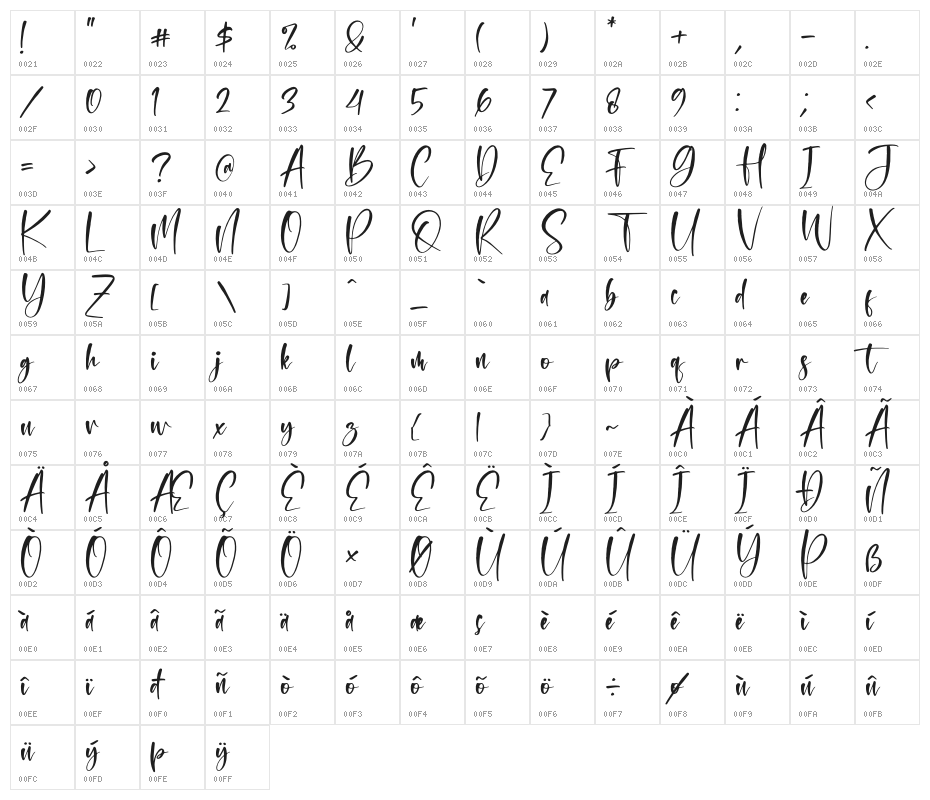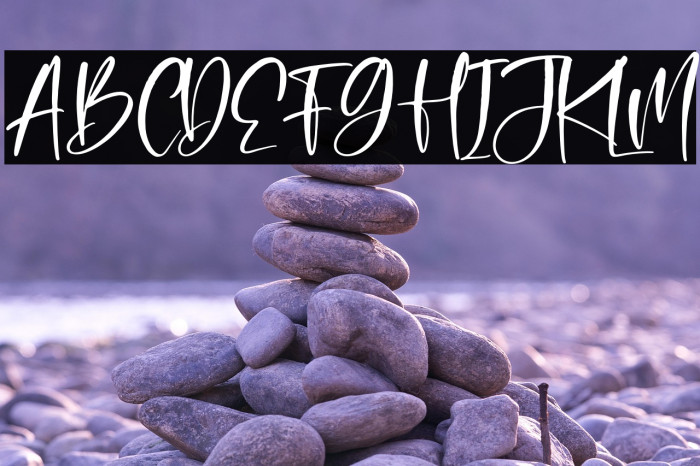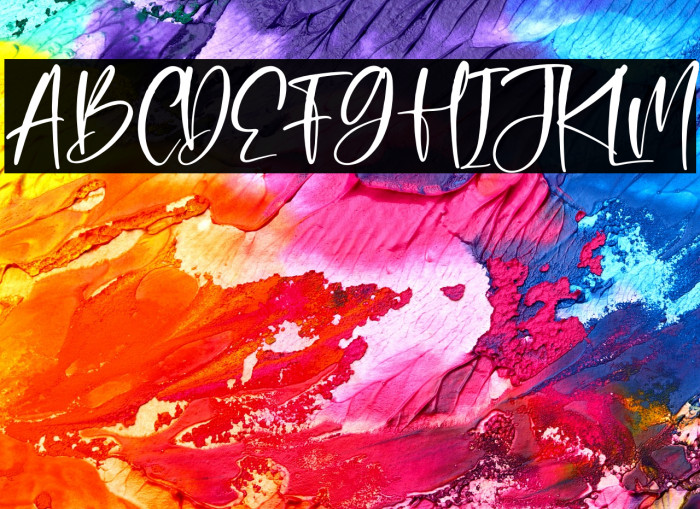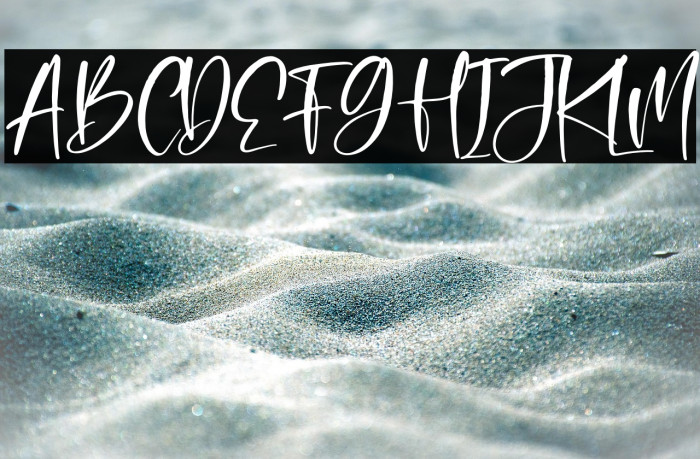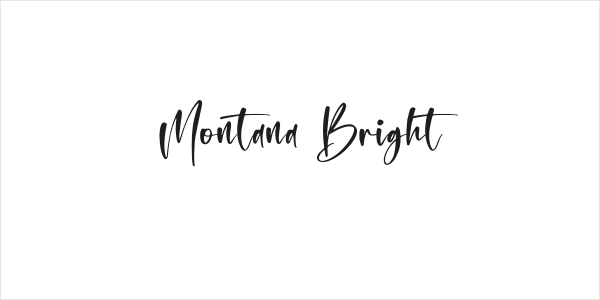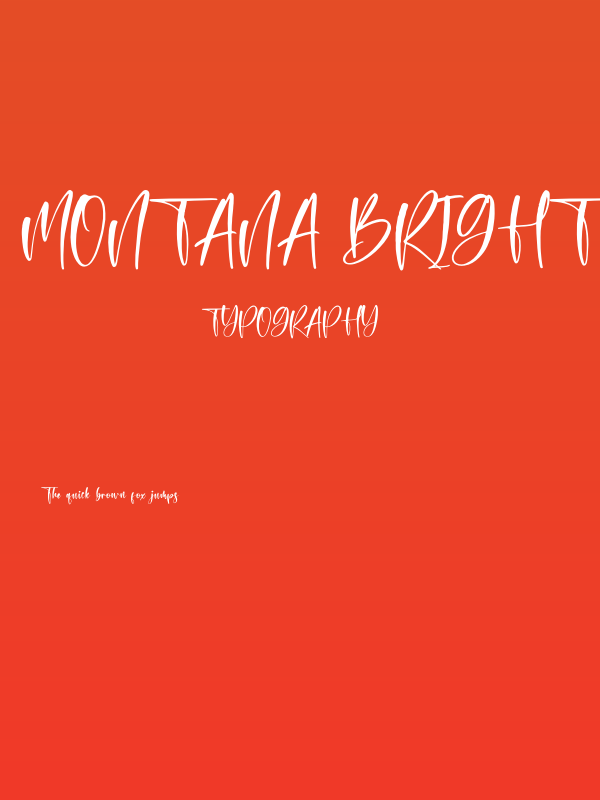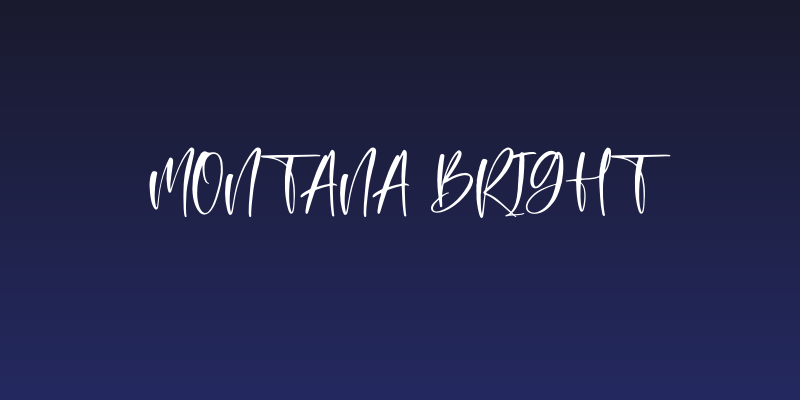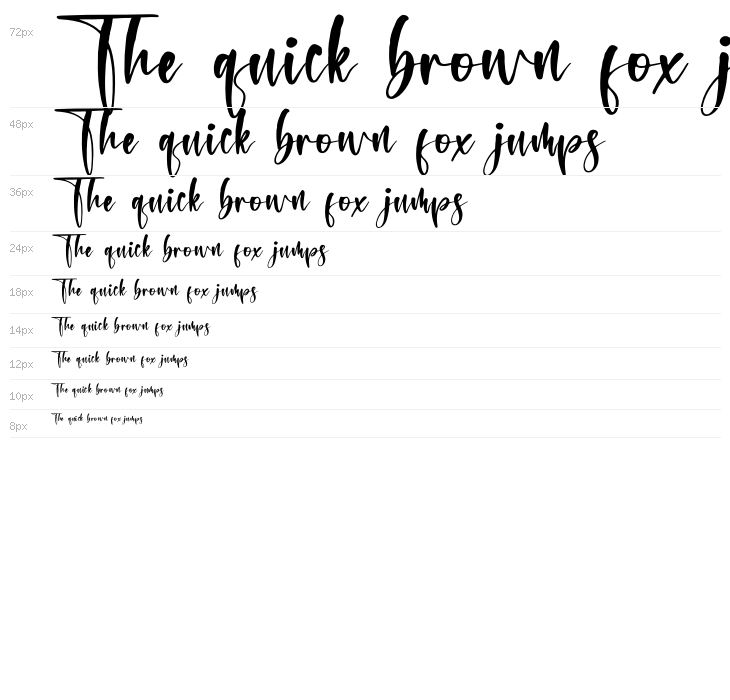
Montana Bright Font
Montana Bright Description
This font features a dynamic and flowing script style, characterized by its elegant and expressive letterforms. The uppercase letters are bold and sweeping, while the lowercase letters maintain a consistent fluidity, creating a harmonious balance. The numbers and special characters are crafted with the same attention to detail, ensuring a cohesive look across all elements. The strokes are smooth and slightly varied in thickness, adding a touch of sophistication and personality. This font is perfect for projects that require a personal and artistic touch, making it ideal for invitations, branding, and creative designs.
| Proposed Projects | Ideal for wedding invitations, branding, greeting cards, and artistic designs. |